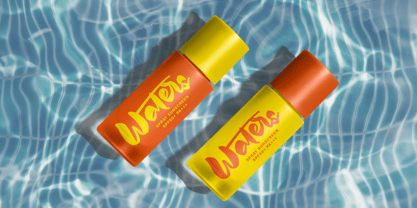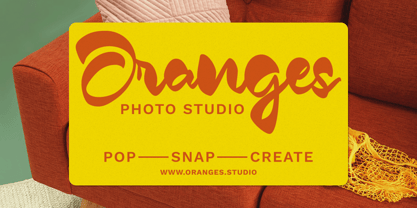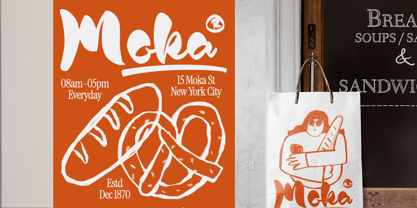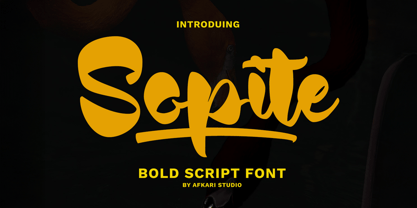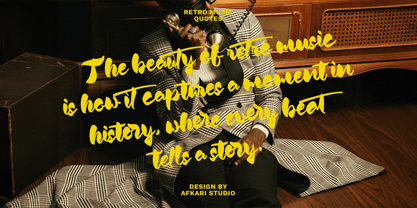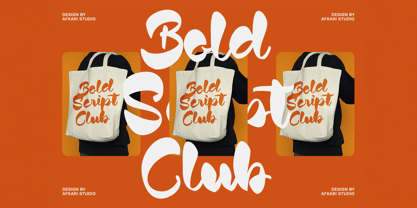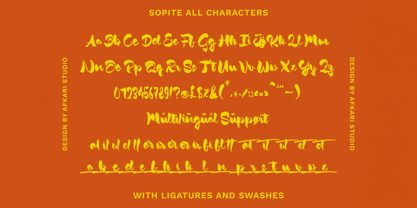
Sopite
by Afkari Studio
The Sopite Font Family was designed by Musthafa Kamal Emje and published by Afkari Studio. Sopite contains 1 styles. More about this family
Sopite – Handwritten Bold Script Font is all about making a statement with style. It has that bold, confident energy of a handwritten note—like something scribbled quickly but with purpose. The strokes are strong, the curves are smooth, and the whole vibe feels personal yet powerful.
Whether you're working on a logo, a product label, or just want your message to stand out on social media, Sopite brings that handmade charm with a punch of boldness. It’s expressive without being messy, and stylish without trying too hard.
Features;
- Uppercase, Lowercase, Number, and Punctuation
- Special Alternates and ligatures
- Mültîlíñgúãl Sùppört for; ä ö ü Ä Ö Ü ß ¿ ¡
If your project needs a bold human touch, Sopite is ready to write it out loud.
Designers: Musthafa Kamal Emje
Foundry: Afkari Studio